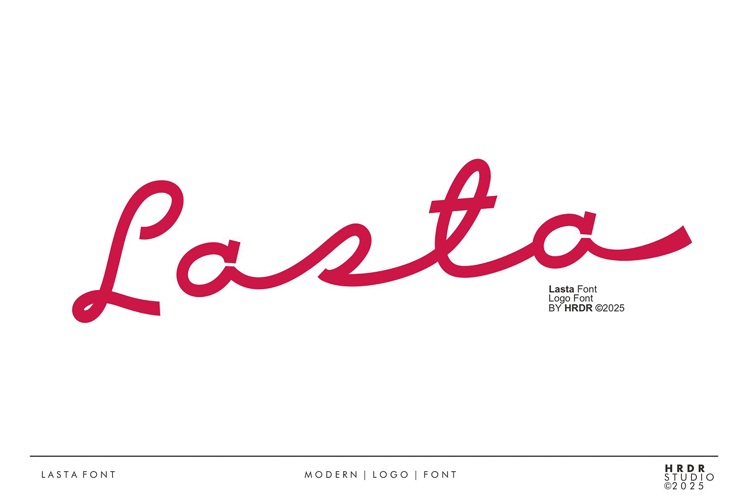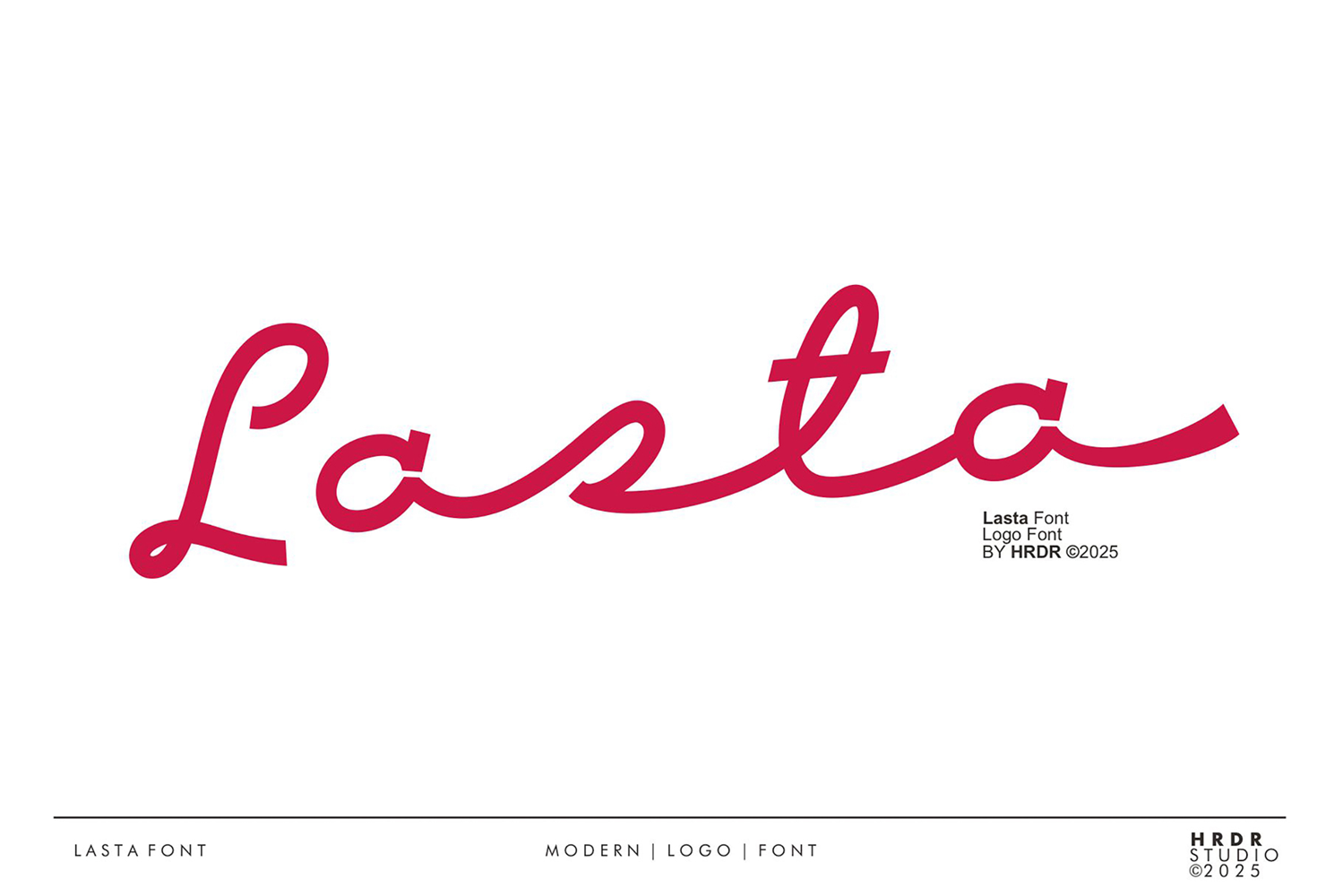
Say hello to Lasta ! Lasta is a new Casual script font with elegant style meant for Logo & branding, The incharacters were build in chunky personality, It's great for headlines and titles but is also very legible in sentence case. perfect for crafting, branding, invitation, stationery, Logo, wedding designs, social media posts, advertisements, product packaging, product designs, label, Posters, photography, special events, or anything.